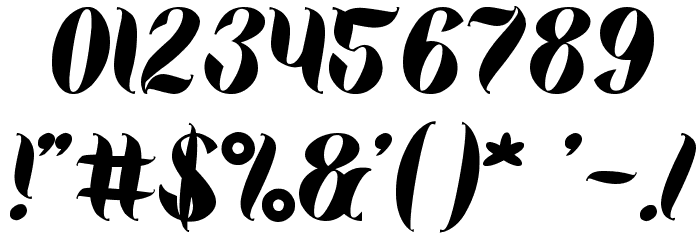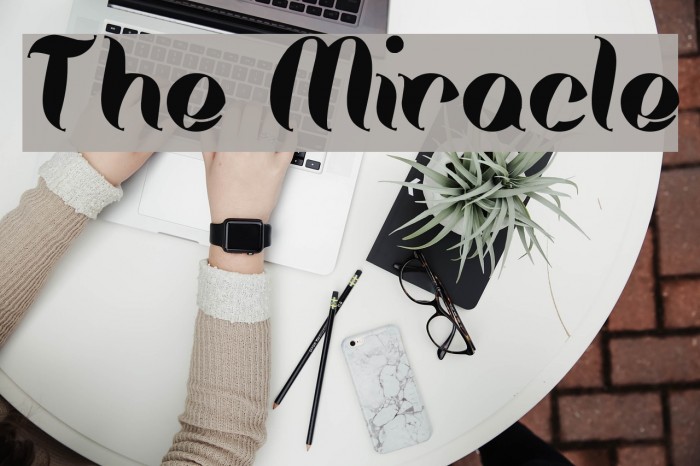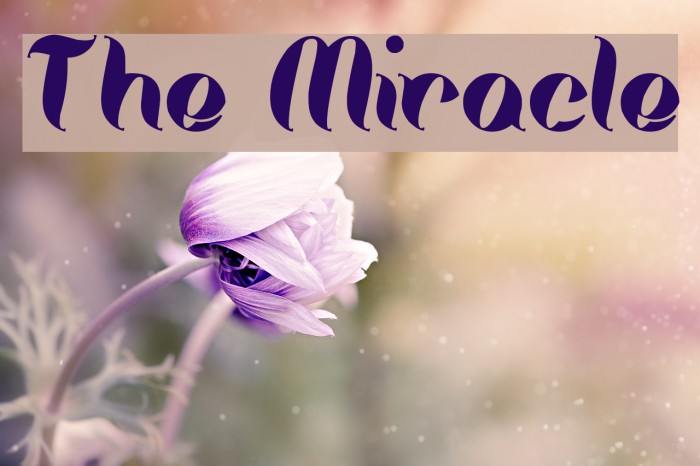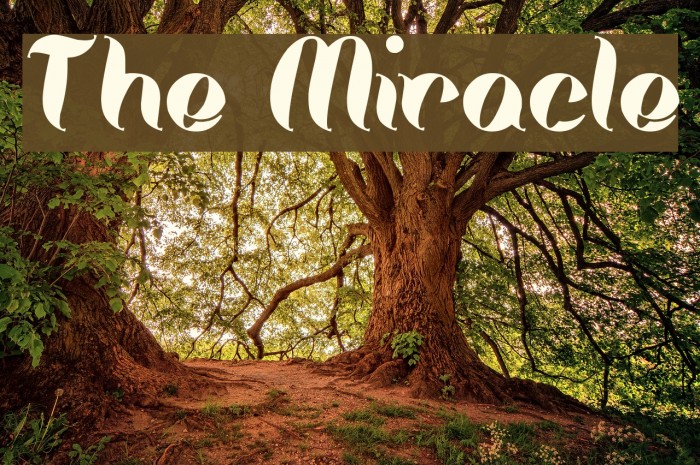
The Miracle Font
This font features a bold and dynamic script style with a modern flair. The characters are crafted with a flowing, brush-like quality, giving them a sense of movement and energy. The uppercase letters are particularly striking, with sweeping curves and dramatic flourishes that create a sense of elegance and sophistication. The lowercase letters maintain this fluidity, offering a harmonious balance between the characters. The numerals and special characters are equally expressive, maintaining the overall aesthetic of the font. This typeface is ideal for projects that require a touch of creativity and boldness, making it perfect for branding, advertising, and artistic endeavors.
A bold, dynamic script font with a modern, brush-like style.
- Proposed Projects: Ideal for branding, advertising, artistic projects, and creative designs.
- Use Case: Logos, Headlines, Artistic projects